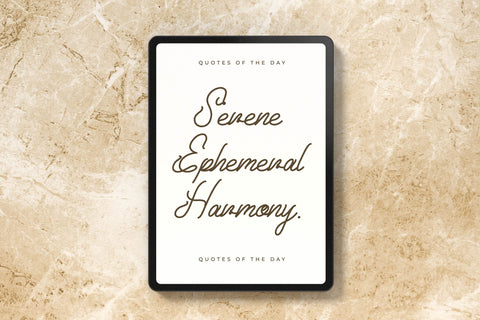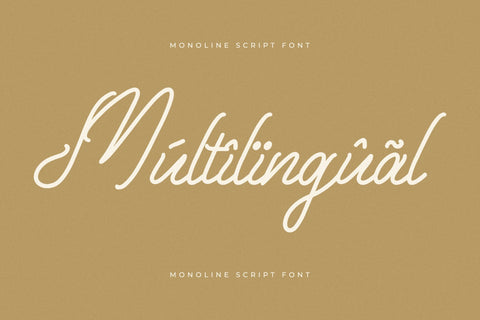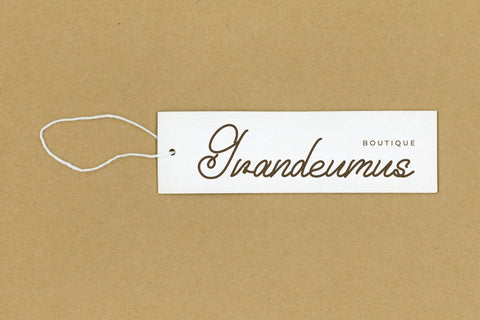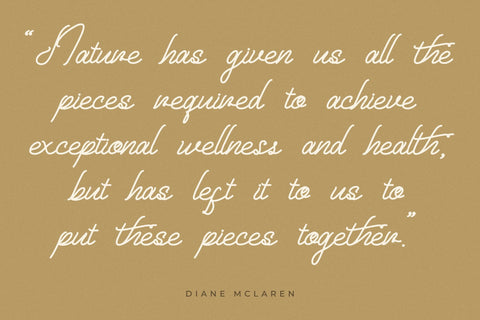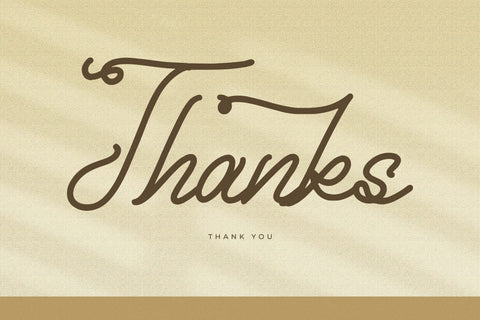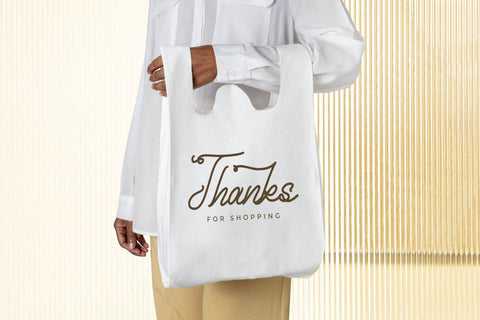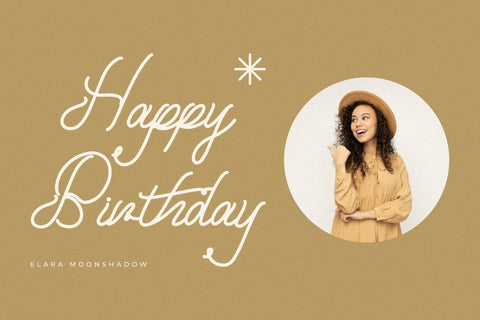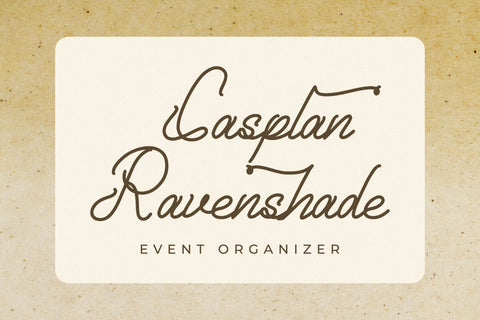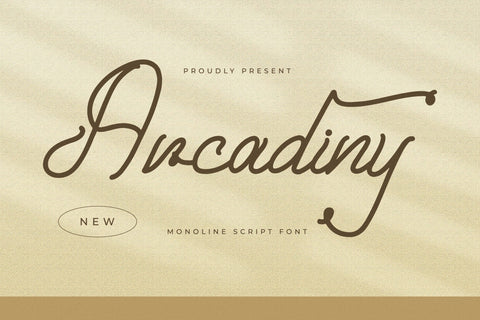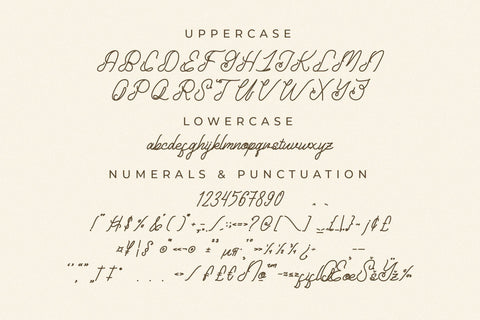
Arcadiny - Monoline Script Font
Arcadiny - Monoline Script Font , from Letterena, is a Luxury serif font, suitable for any projects such as: logos, branding projects, homeware designs, product packaging, mugs, quotes, posters, shopping bags, t-shirts, book covers, name card, invitation cards, greeting cards, label, photography, watermark, special events, and all your other luxury and beautiful projects that need a Luxury serif taste.